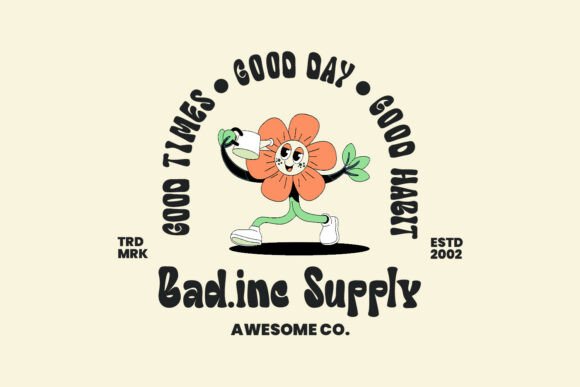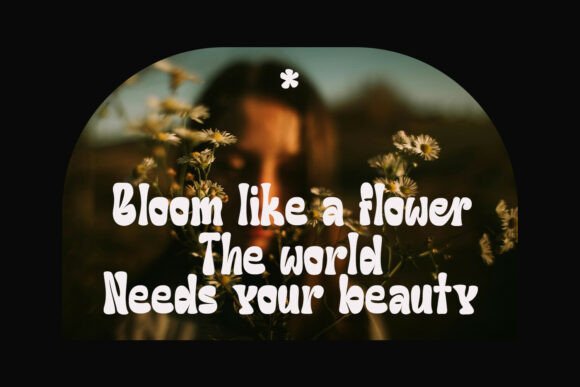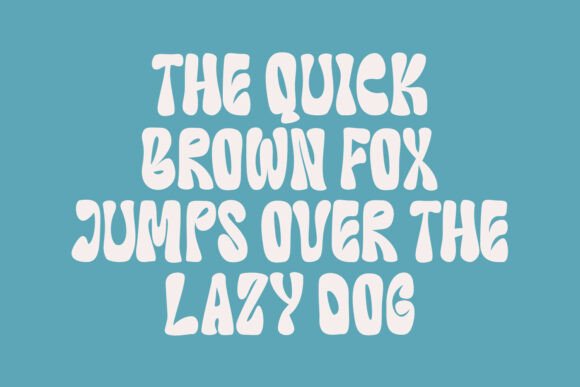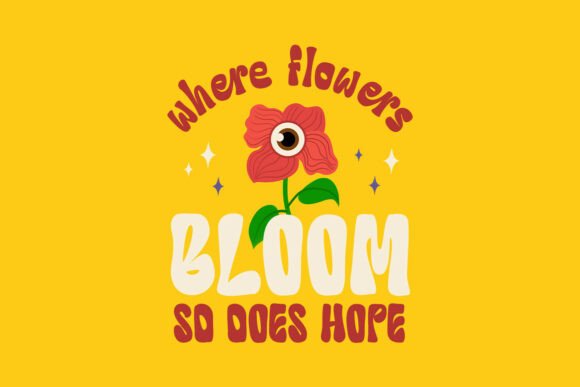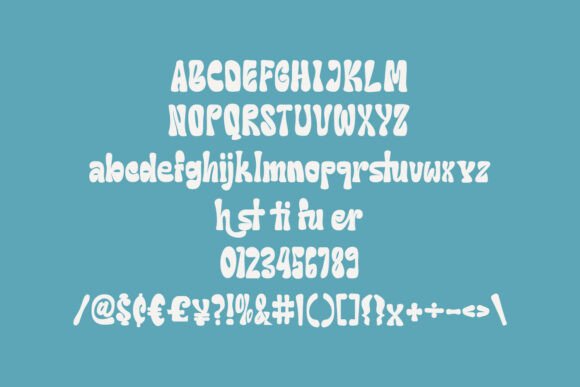
Step Back into the Groovy 1970s with Codera Madoce Font
Welcome to the vibrant world of 1970s design, where “flower power” and psychedelic culture reign supreme. If you’re looking for a font that embodies the era’s playful, soulful spirit, look no further than Codera Madoce. This display font is designed to bring rhythm and personality to your creative projects, making it perfect for designers and crafters who want to add a touch of nostalgia to their work.
The Essence of Psychedelic Culture
Codera Madoce font captures the essence of psychedelic culture with its liquid-like curves, exaggerated weights, and high-contrast forms. The font’s organic, wavy aesthetic feels alive with movement, making it perfect for projects that demand high energy and a bold, vintage personality. The thick, expressive curves of Codera Madoce blend seamlessly with a modern, playful twist, creating a unique and eye-catching visual experience.
Perfect for High-Energy Designs
The heavy, expressive nature of the Codera Madoce font makes it an unbeatable choice for music festival posters, streetwear branding, and retro-themed event flyers. Its bold, attention-grabbing style is sure to stand out in a crowded design landscape, and its versatility allows it to be paired with a wide range of graphics, textures, and color palettes.
Maximalist Designs Come Alive
As a Codera Madoce typeface, it excels in “maximalist” designs where color and form reign supreme. This font is perfect for designers who want to create bold, eye-catching visuals that showcase their creativity and style. Whether you’re designing a poster, flyer, or social media graphic, Codera Madoce is sure to bring your vision to life.
Pairing Suggestions
To fully embrace the nostalgic roots of Codera Madoce, try pairing it with grainy textures, neon color palettes, and disco-inspired graphics. This will help to create a cohesive, retro aesthetic that’s sure to transport your audience back to the 1970s. Some popular pairing options include:
- Grainy textures: Add a tactile, organic feel to your design with grainy textures that evoke the look and feel of vintage posters and flyers.
- Neon color palettes: Bright, bold neon colors were a hallmark of 1970s design. Try pairing Codera Madoce with a neon color palette to create a truly eye-catching visual experience.
- Disco-inspired graphics: Add some sparkle and shine to your design with disco-inspired graphics, such as glittery effects or metallic textures.
Tips for Using Codera Madoce
Here are a few tips for getting the most out of Codera Madoce:
- Use it sparingly: Due to its bold, attention-grabbing style, Codera Madoce is best used sparingly. Try using it as a headline or title font, and pairing it with a simpler font for body text.
- Experiment with colors: Codera Madoce looks great in a wide range of colors, so don’t be afraid to experiment and find the perfect hue for your design.
- Play with textures: As mentioned earlier, grainy textures can add a tactile, organic feel to your design. Try experimenting with different textures to find the perfect look for your project.
Codera Madoce font is a unique and eye-catching display font that’s perfect for designers and crafters who want to add a touch of nostalgia to their work. Its bold, expressive curves and liquid-like forms make it perfect for high-energy designs, and its versatility allows it to be paired with a wide range of graphics, textures, and color palettes. Whether you’re designing a music festival poster, streetwear branding, or retro-themed event flyer, Codera Madoce is sure to bring your vision to life.